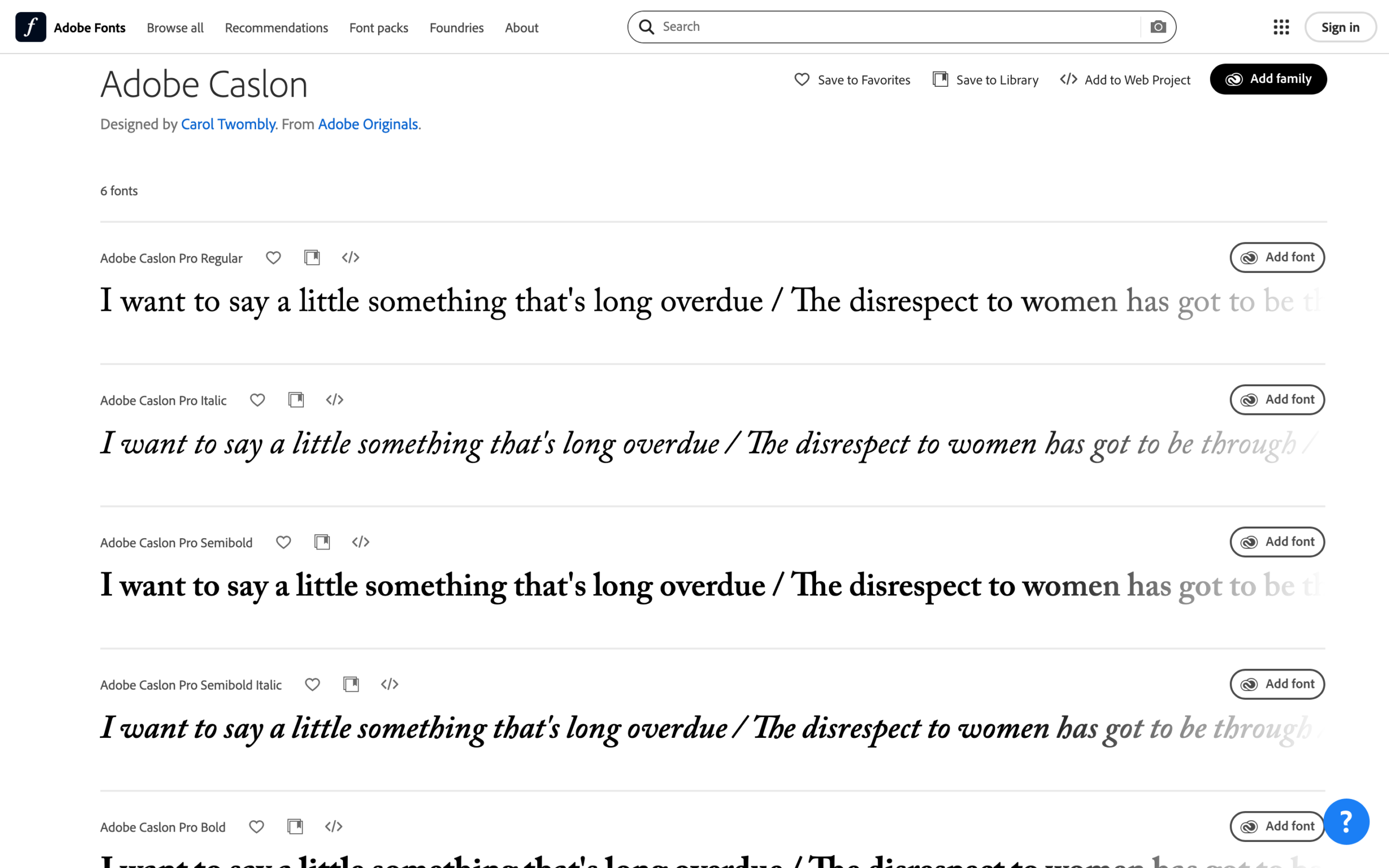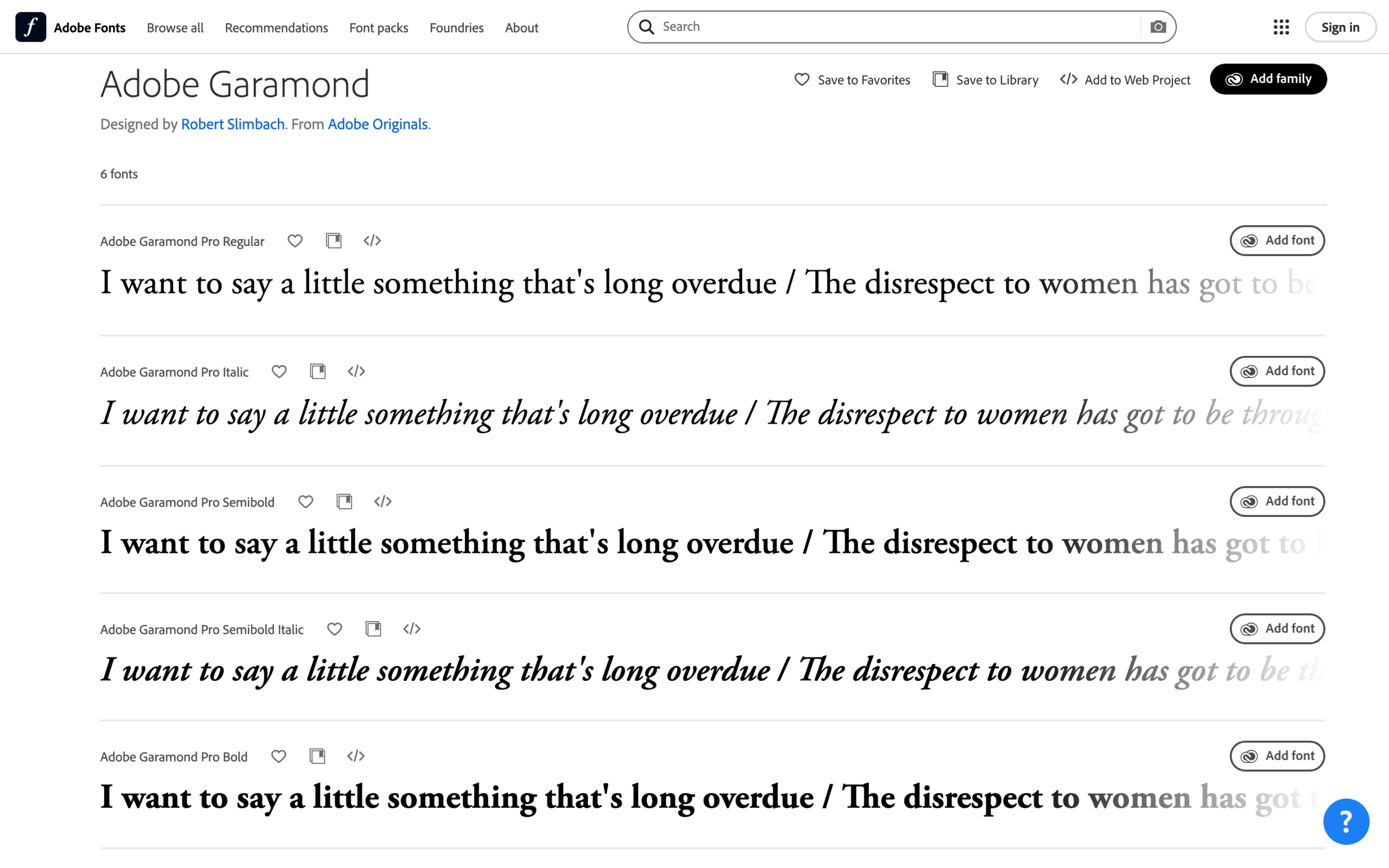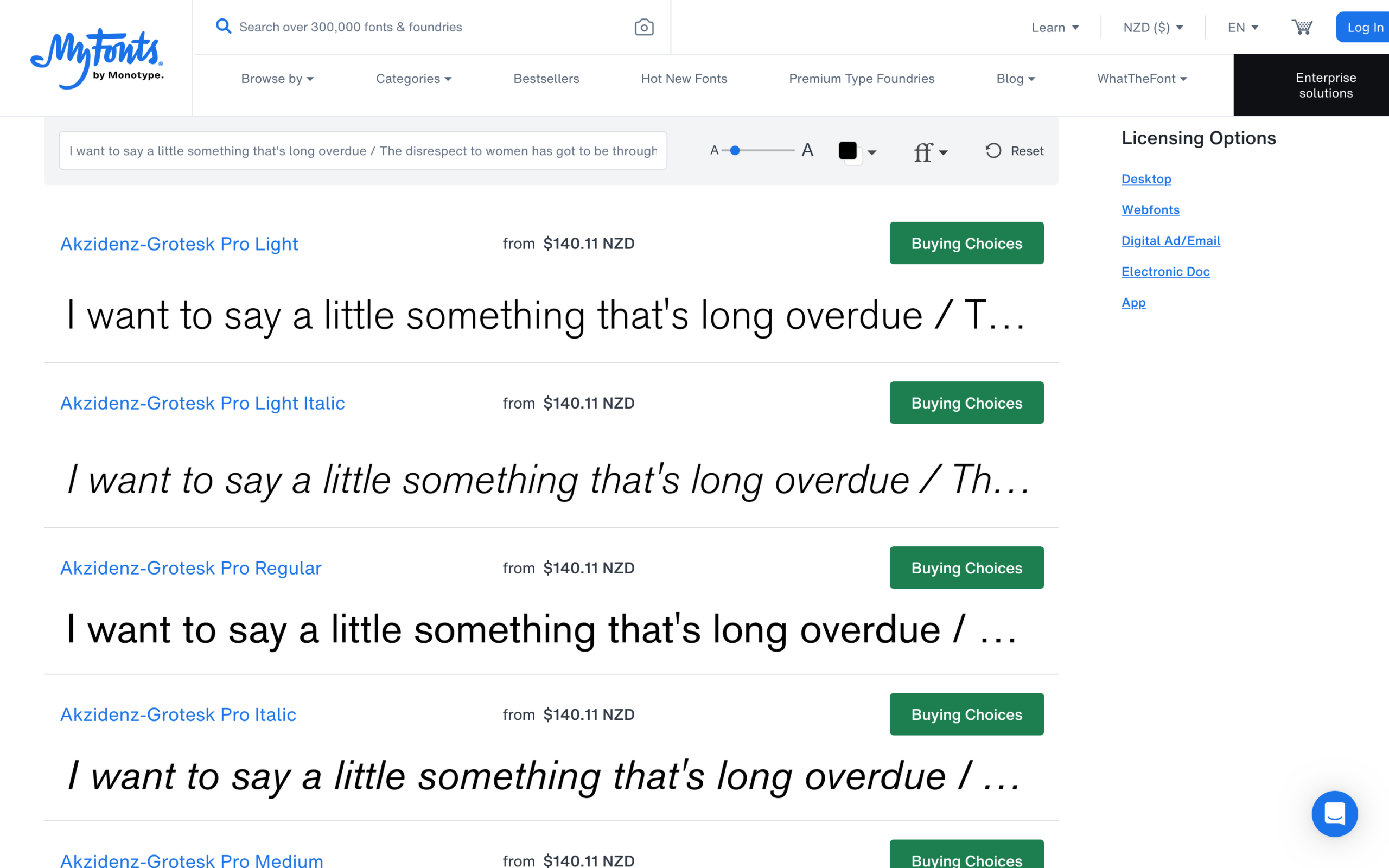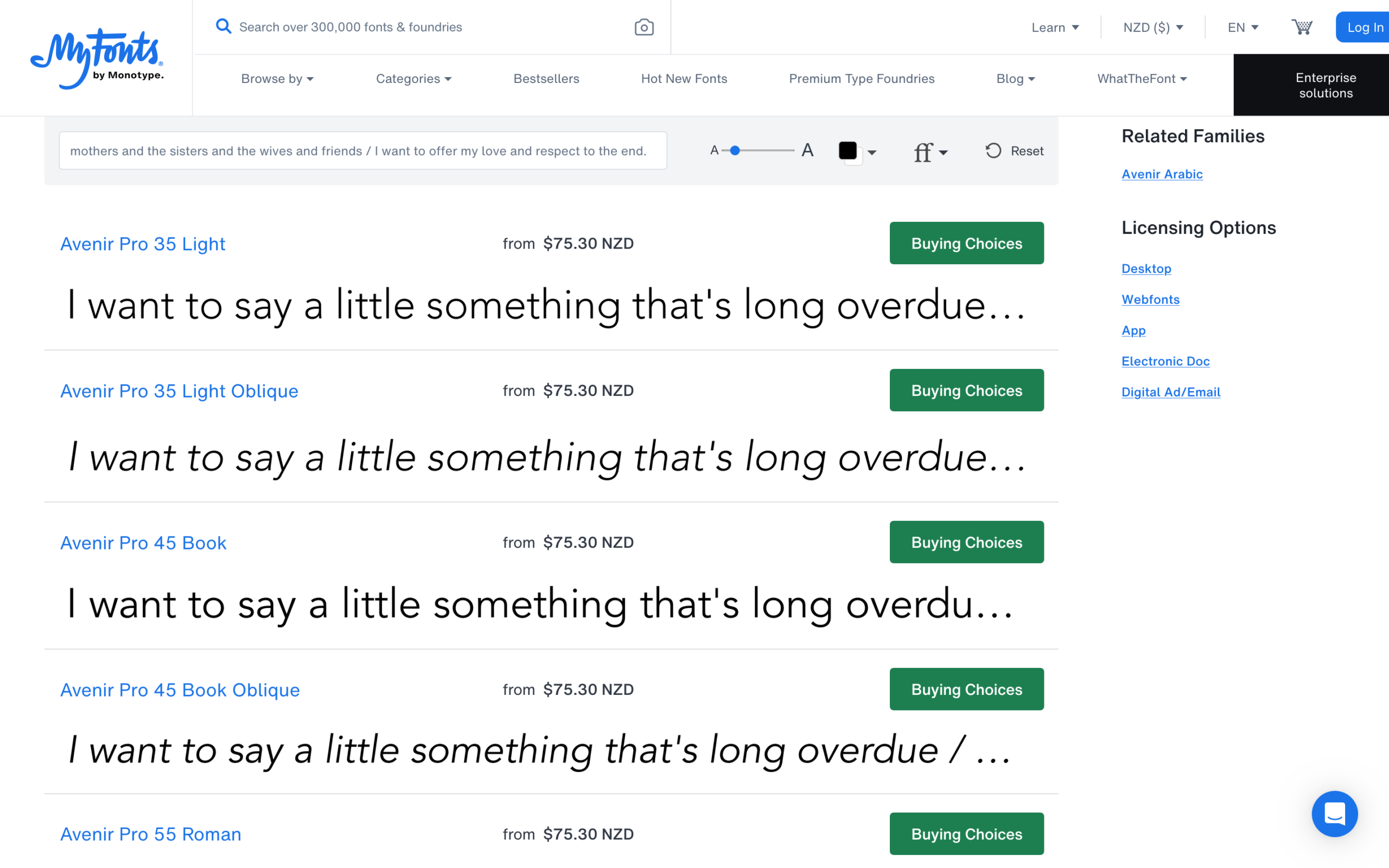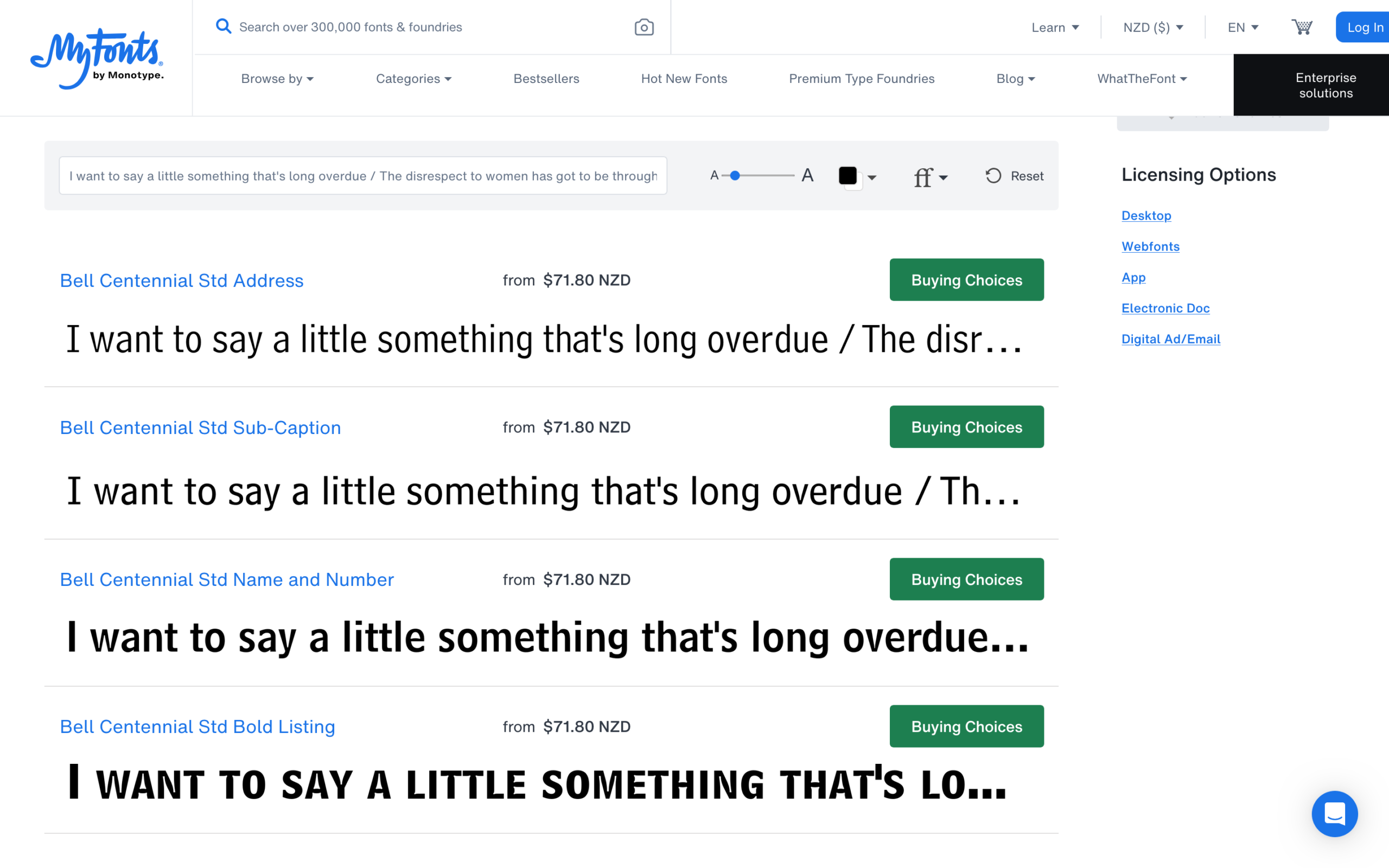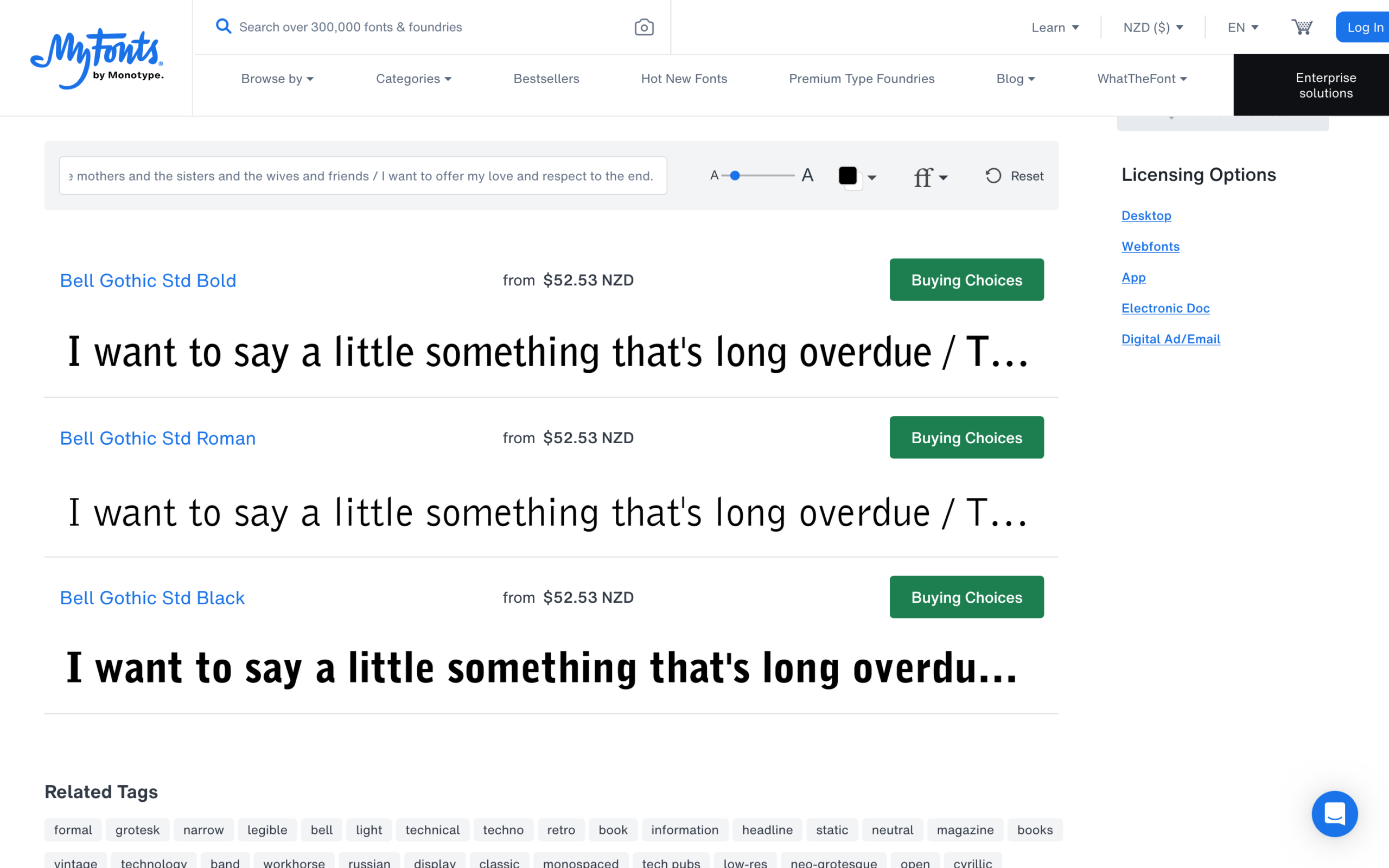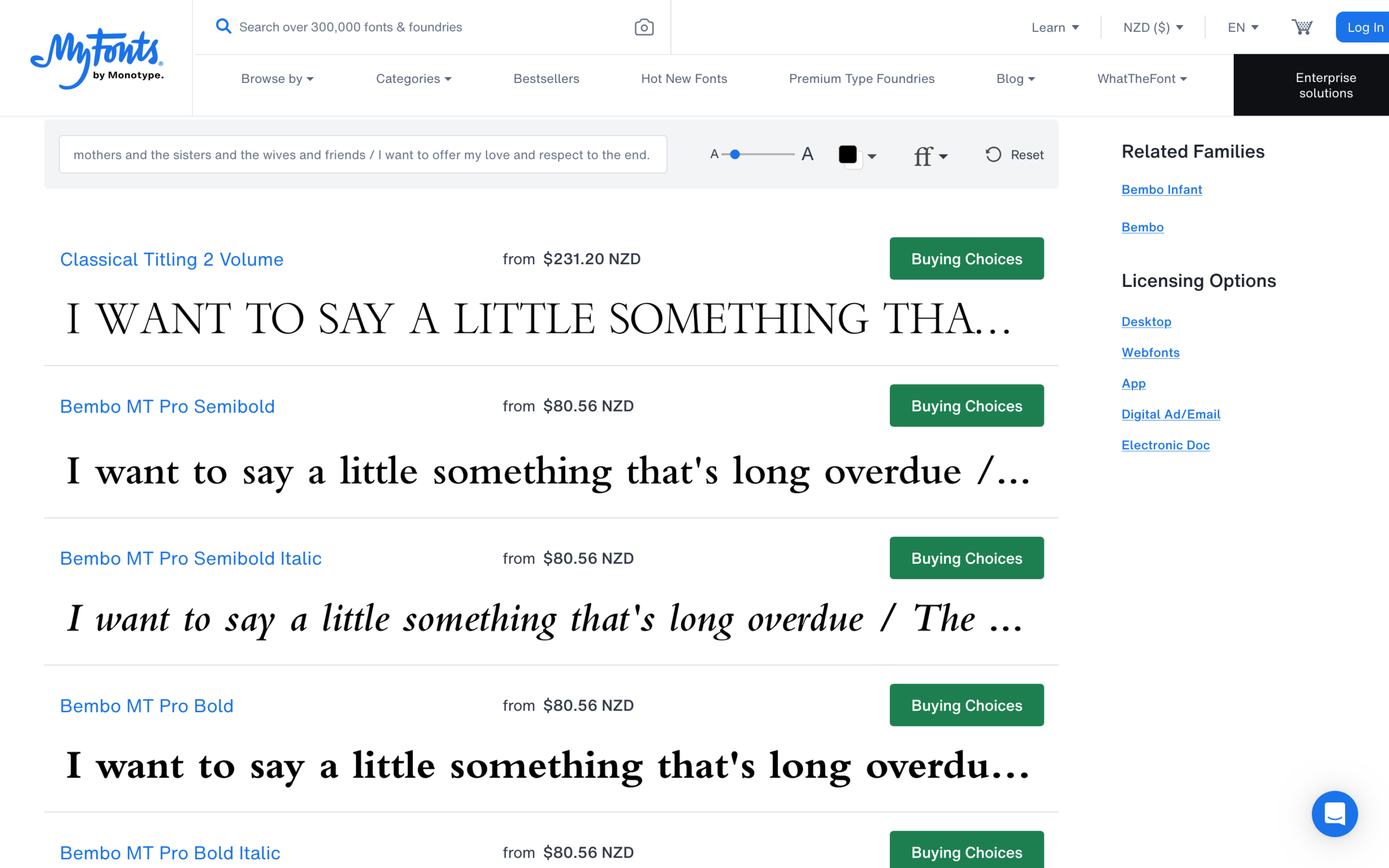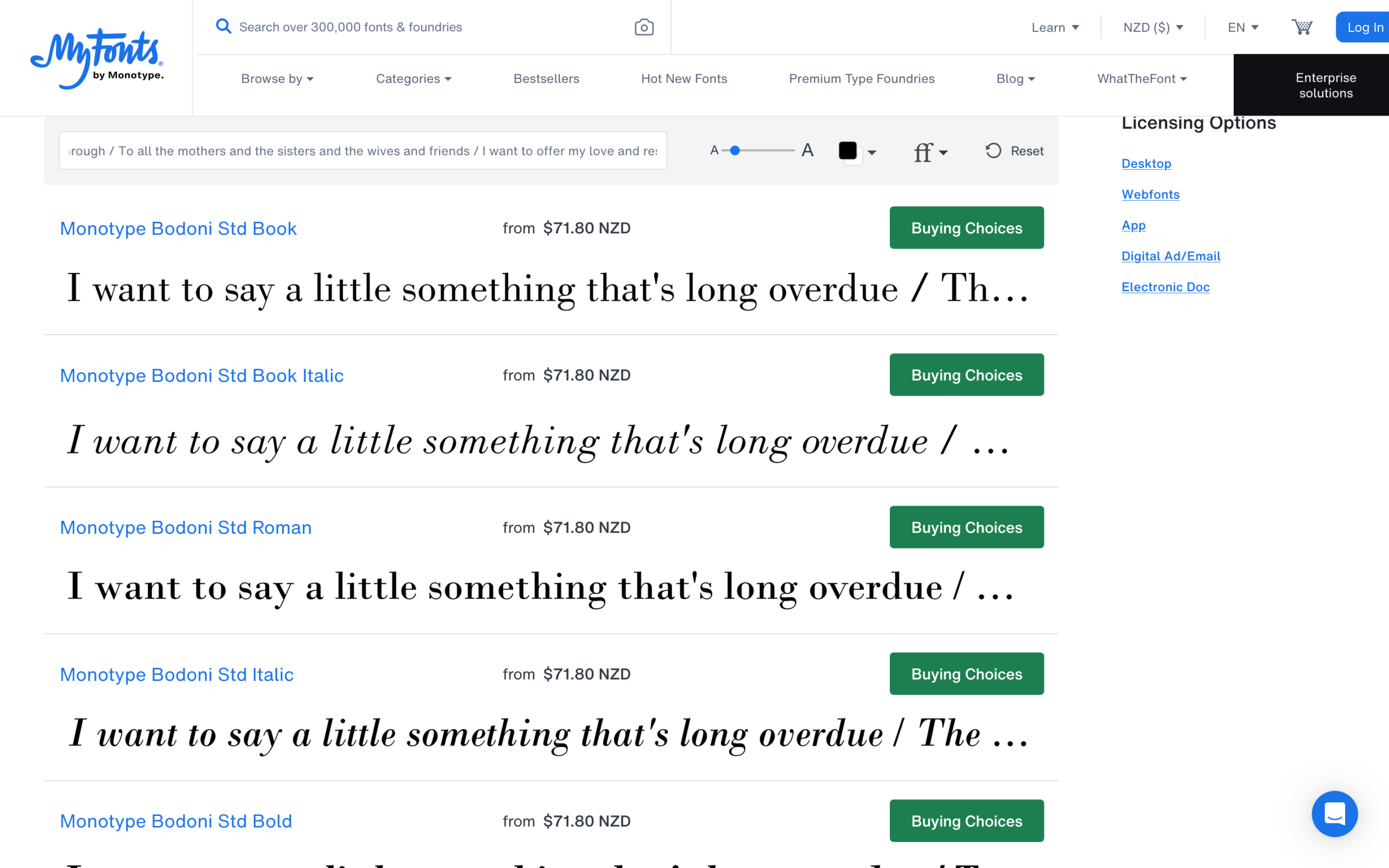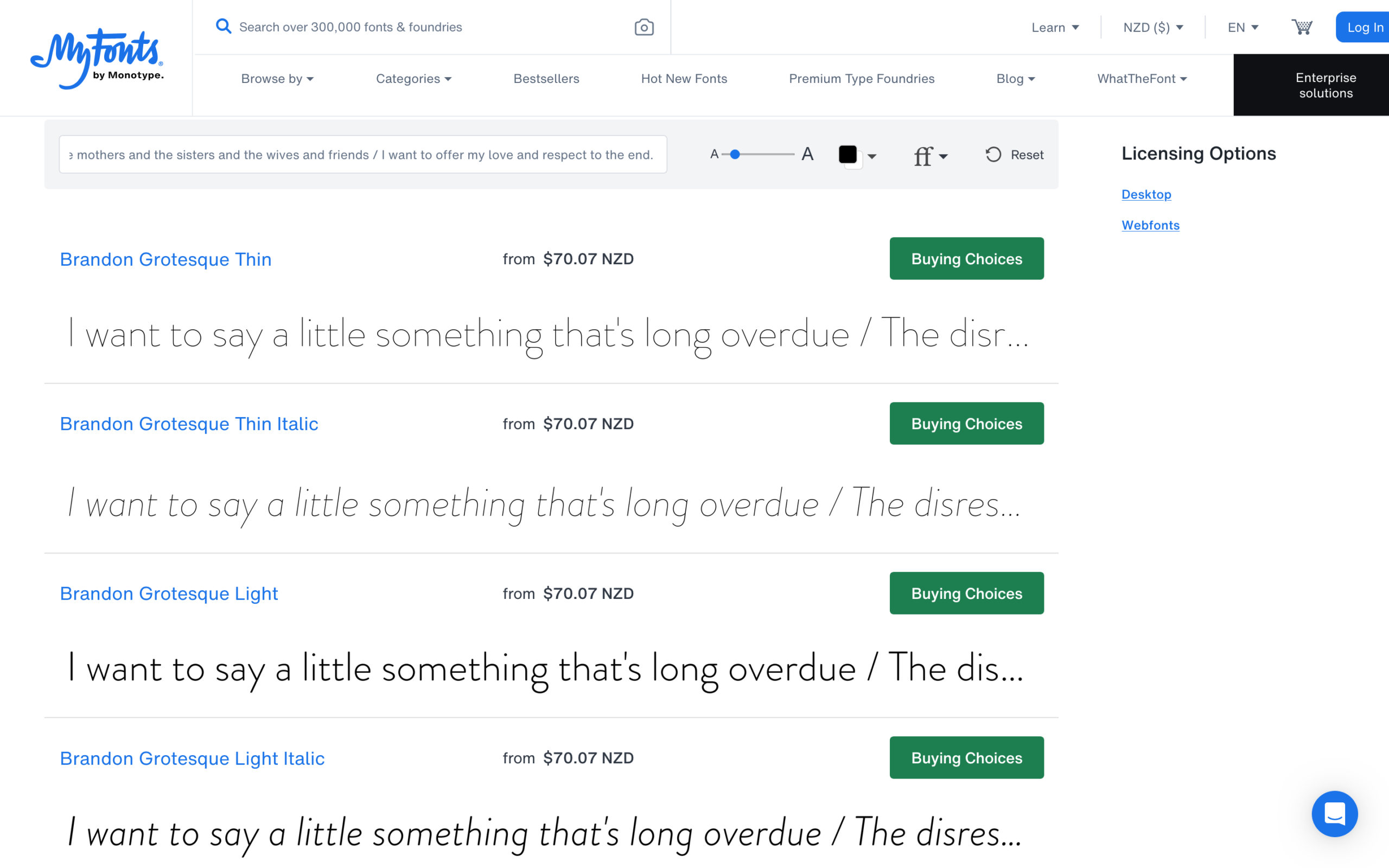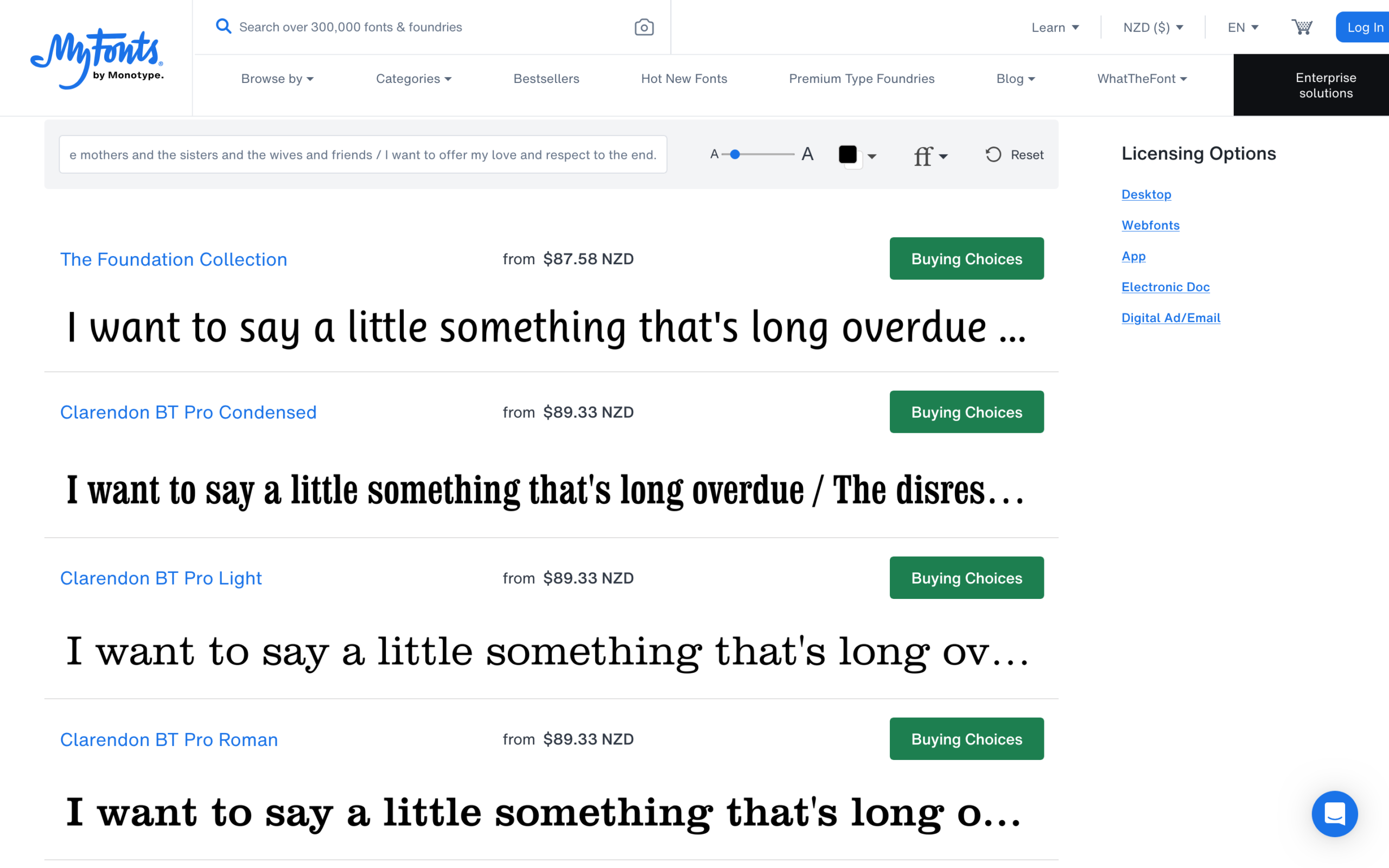
Best fonts for mobile apps, websites & dashboards design
These are the fonts professional designers keep coming back to, again and again, to convey style, tone, emotion and readability. The serif and sans-serif typefaces that actually earn a place in real projects, with the history behind each.
The fonts the professionals use
These are some of the most recognisable and trusted fonts used by graphic designers to convey style, themes, emotion, readability, and accessibility. I keep coming back to this list myself, whenever a project needs a serif with real history behind it or a sans-serif that won’t date in five years. These are the typefaces graphic and digital designers reach for again and again, they show up in branding, editorial work, wayfinding, and interfaces, earning their place rather than chasing a trend. Some go back centuries, others were built specifically for screens. Each one links straight through so you can see it, license it, or download it yourself.
Serif
Adobe Caslon
William Caslon released his first typefaces around 1722, becoming the first great English punchcutter and ending Britain’s reliance on imported Dutch type. His designs were immediately popular throughout the British Empire and the American colonies. Benjamin Franklin was an enthusiastic user, and the Declaration of Independence was set in Caslon. Adobe Caslon is a careful digital revival by Carol Twombly, released in 1990 and based on Caslon’s original specimen pages from 1734 to 1770. It is an old-style serif with short ascenders and descenders, bracketed serifs, and a graceful rhythm that makes it particularly well-suited to long-form text and editorial work.
Claude Garamond was a sixteenth-century Parisian type designer whose roman types became the model for an enormous proportion of the serif typefaces that followed. Adobe Garamond, designed by Robert Slimbach in 1989, is a digital revival based directly on Garamond’s original type specimens held in the Plantin-Moretus Museum in Antwerp. It is an old-style serif of exceptional elegance, refined, balanced, and remarkably readable at small sizes. It has been widely used in book typography and editorial design for over three decades and remains a benchmark for quality in serif type.
Released by the Berthold Type Foundry in Berlin in 1896, Akzidenz Grotesk is often described as the mother of all sans-serifs. The name roughly translates as “jobbing sans-serif,” a workhorse built for commercial print runs like tickets, forms, and signage rather than fine printing. It spent decades quietly in the background before becoming the typeface of choice for Swiss graphic designers in the 1950s and 60s, helping define what we now call the International Typographic Style. It also directly influenced the creation of Helvetica. Clean, neutral, and quietly authoritative, it remains widely used in branding and editorial design today.
Avant Garde Gothic started life as a magazine logo. In the late 1960s, designer Herb Lubalin created the masthead for Avant Garde, a bold and often controversial American arts and culture publication. The design was a tight geometric construction of overlapping capitals, and it proved so striking that it became a full typeface in 1970, released by the newly formed International Typeface Corporation. Tom Carnase drew the original alphabets from Lubalin’s sketches, resulting in a pure geometric sans-serif built almost entirely from circles and straight lines. Its large open counters, tall x-height, and famous ligatures made it one of the defining typefaces of the 1970s. It remains a popular choice for display and headline use.
Designed by Adrian Frutiger and released by Linotype in 1988, Avenir (French for “future”) is a geometric sans-serif that quietly improves on its predecessors. Where Futura is strictly geometric, Avenir introduces subtle humanist touches, slightly varied stroke weights and softer letterforms, that make it far more comfortable to read at length. Frutiger himself described it as the typeface he was most satisfied with. It is widely used in corporate identity, wayfinding systems, and digital interfaces, and remains one of the most refined and readable geometric sans-serifs available.
Bell Centennial was designed by Matthew Carter in 1978, specifically commissioned by AT&T to replace Bell Gothic as the typeface for their telephone directories. The challenge was extreme: text had to be printed at tiny sizes on thin, absorbent newsprint. Carter engineered the typeface around those constraints, including ink traps, small notches cut into the letterforms that compensate for ink spread under pressure. The result is a font where every detail serves a functional purpose. It is a masterclass in problem-solving through type design, and its directness makes it a compelling choice well beyond its original context.
Bell Gothic was designed in 1938 by Chauncey H. Griffith for Mergenthaler Linotype, commissioned by Bell Telephone as the typeface for phone directories across the United States. Like its successor Bell Centennial, it was purpose-built for legibility at small sizes in difficult print conditions. It has a compact, no-nonsense character that makes it useful well beyond its original purpose, and appears regularly in editorial and branding contexts where a functional, direct sans-serif is needed.
Bembo’s origins reach back to one of the most important printers of the Italian Renaissance, Aldus Manutius. In 1496 he used a new roman typeface cut by Francesco Griffo to print a short book by the scholar Pietro Bembo, after whom the face would eventually be named. That typeface became hugely influential, serving as the model for dozens of later Renaissance types. In 1929 Stanley Morison and the Monotype design team created a revival for modern use, preserving the original’s graceful proportions and quiet authority. It is a classic old-style serif, ideal for book typography, long-form reading, and any context where typographic restraint and historical depth are valued.
Giambattista Bodoni was an eighteenth-century Italian printer and typographer who pushed the contrast between thick and thin strokes to an extreme, creating a style of typeface that had never been seen before. His designs, geometric, precise, and strikingly high in contrast, mark the shift from old-style to modern serif typography. The Monotype Bodoni revival preserves the razor-sharp hairline serifs and dramatic stroke weight variation that give the family its distinctive impact. Bodoni is a staple of fashion and luxury publishing, where its elegant severity has been used by Vogue since the early twentieth century.
None of these fonts are neutral, even the quiet, workhorse ones. Every choice sets a tone before a single word gets read, trustworthy, playful, or serious, decided in an instant. That’s why this list keeps growing rather than sitting finished. A typeface earns its place here through craft and history, not through being trendy, so it’s worth revisiting whenever you’re choosing type for something that matters. Type design itself pulled me in deep enough that I ended up building a typography side project of my own, two free geometric fonts from scratch, worth a look if you’re curious what that process actually involves.